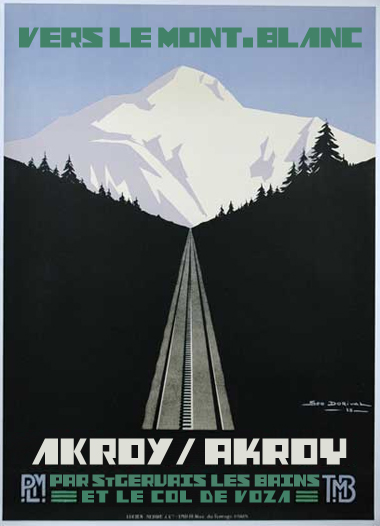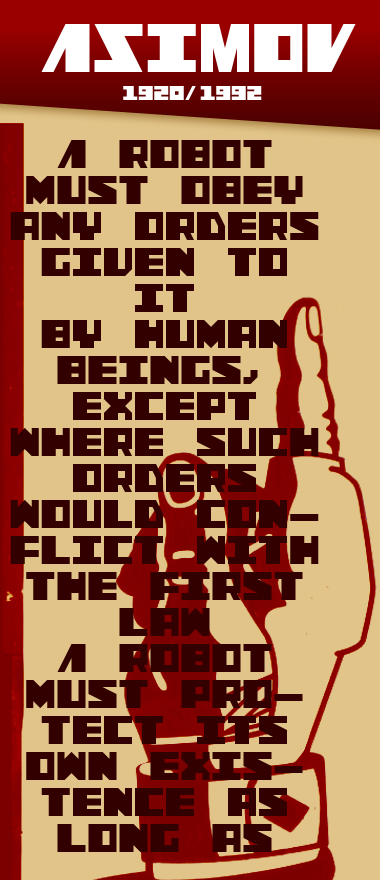
• AKROY is a tiny readable font from a 2x2 grid. First of all I try as possible to use no Stack and Composite but at a certain point I had to take advantage of FS2.0 ~~~~~~~~~~~~~~~~~~~~~~~~~~~~~~~ The influence is comming from a mix of genre of a same period 1920~1930: European and russian posters, Art Deco fonts mouvement. I imerge myslef by passing in review over an hundred of posters and close everything to modestly create this font. ~~ UPPERCASE: use Diagonals ARSVXYZ LOWERCASE: Mostly Square everywhere ~~~~~~~~~~~~~~~~~~~~~~~~~~~~~~~ here it'is not for promoting a site but use as a reference of those masters typographers and graphic designers of the 20's and 30's. ~~ http://www.internationalposter.com/search-results.aspx?defaultview=browse&title=Art+Deco&style=Art+Deco&page=1
I cheat on this last Sample, I simply put my font on an existing poster. credits for design: Dorival, Georges - Vers Le Mont. Blanc-PLM 1928
Excellent work - especially on such a tiny grid. 10/10
I'm quite happy with the result regarding the parameters I impose to myself: 2 by 2 grid, less composites possibles and a particular genre.
I'll push an another sample to show the versatility of this font
Cette fonte aurait certainemnent pu être utilisée par un groupe de musique industrielle des années 80. Son parfum très Europe de l'Est, l'inspiration des vieilles affiches constructivistes magnifiant l'ouvrier et la machine, tout aurait plu à cette scène musicale. Bon travail. Puissamment nostalgique.